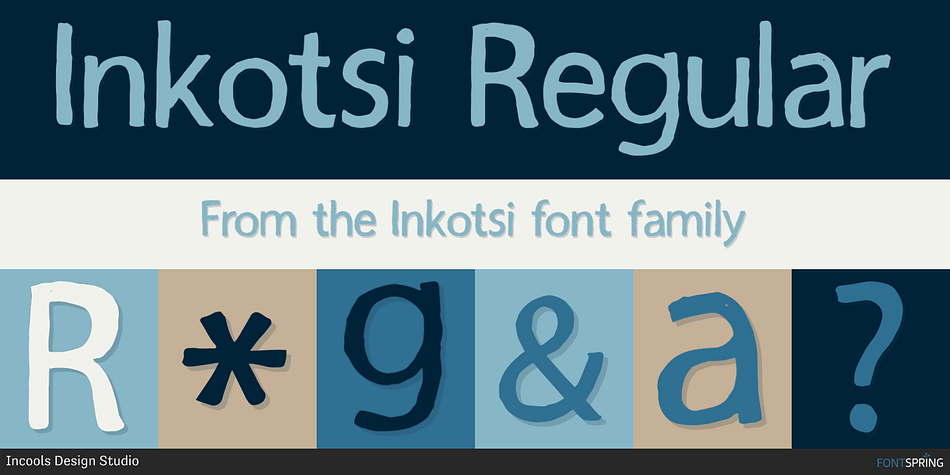
Inkotsi is a grunge and hand display font published by Incools Design Studio.
Inkotsi has been carefully designed with imperfect style by Incools Design Studio. We wanted to create something different, something that can display your art work in an unique style.